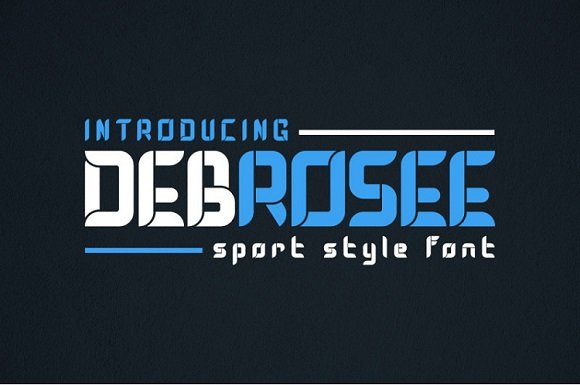
DEBROSEE Display Font
DEBROSEE is a font with a modern, luxurious, classy and different style from the others. This font suit for modern style letter, example for logo, sport, adventure, fitness, and other masculine styles. This font also supports 17 languages ​​(see in the preview image)